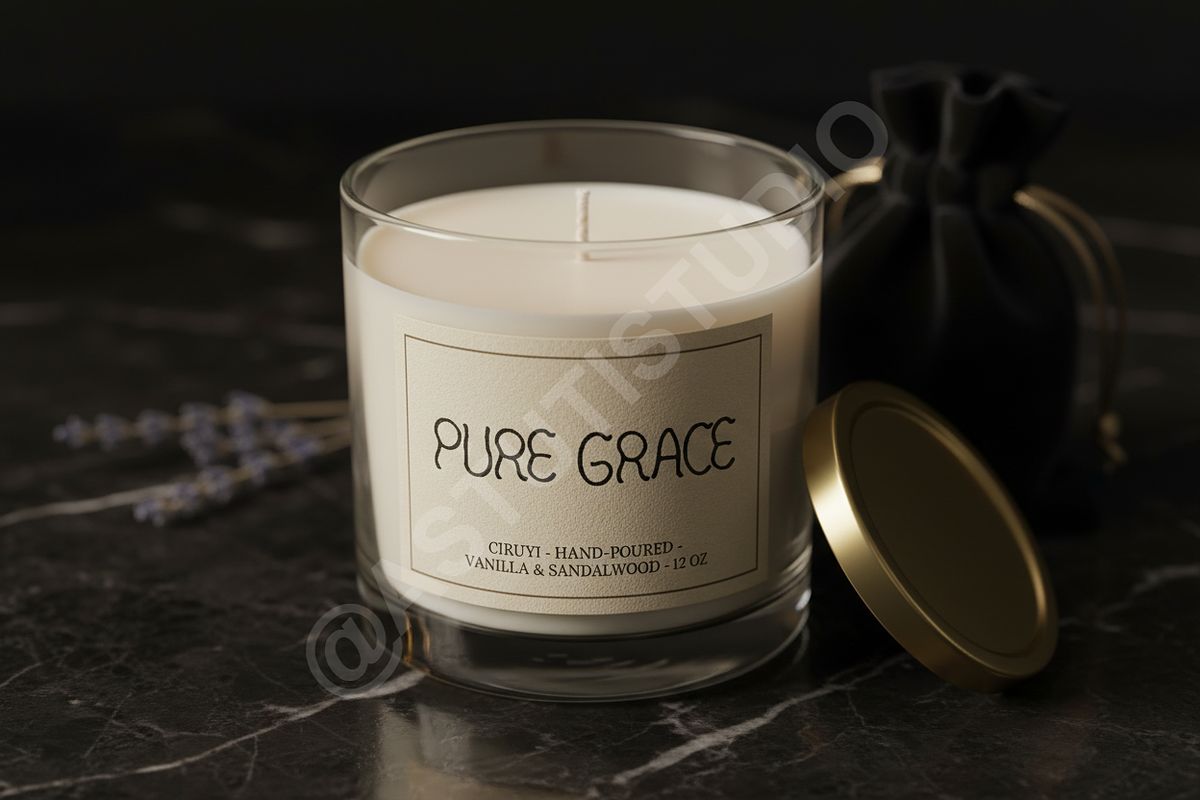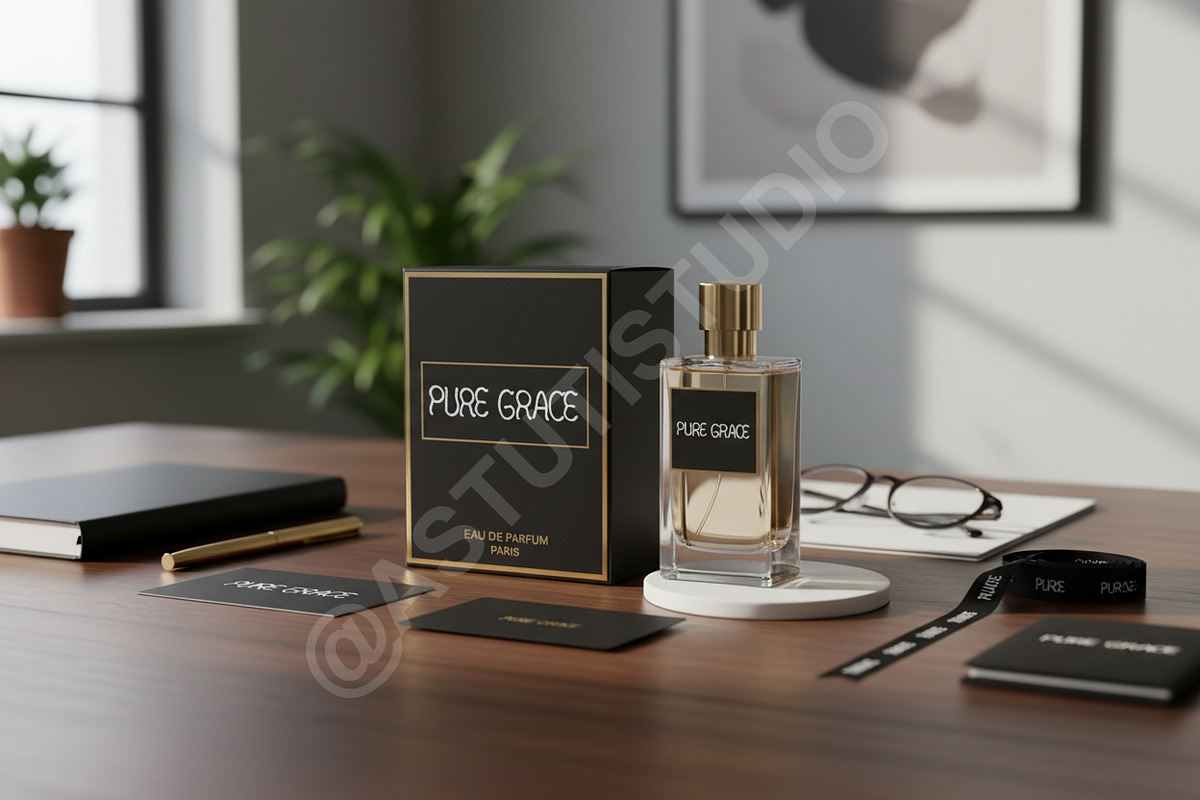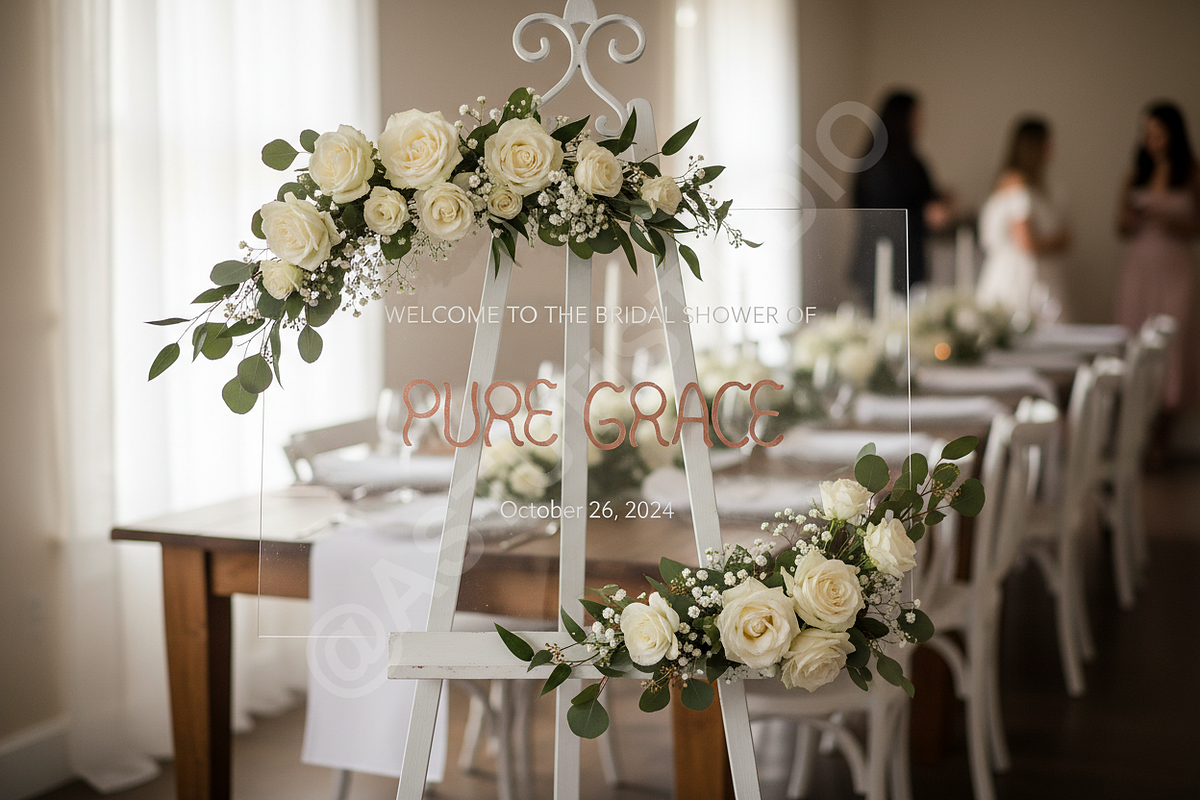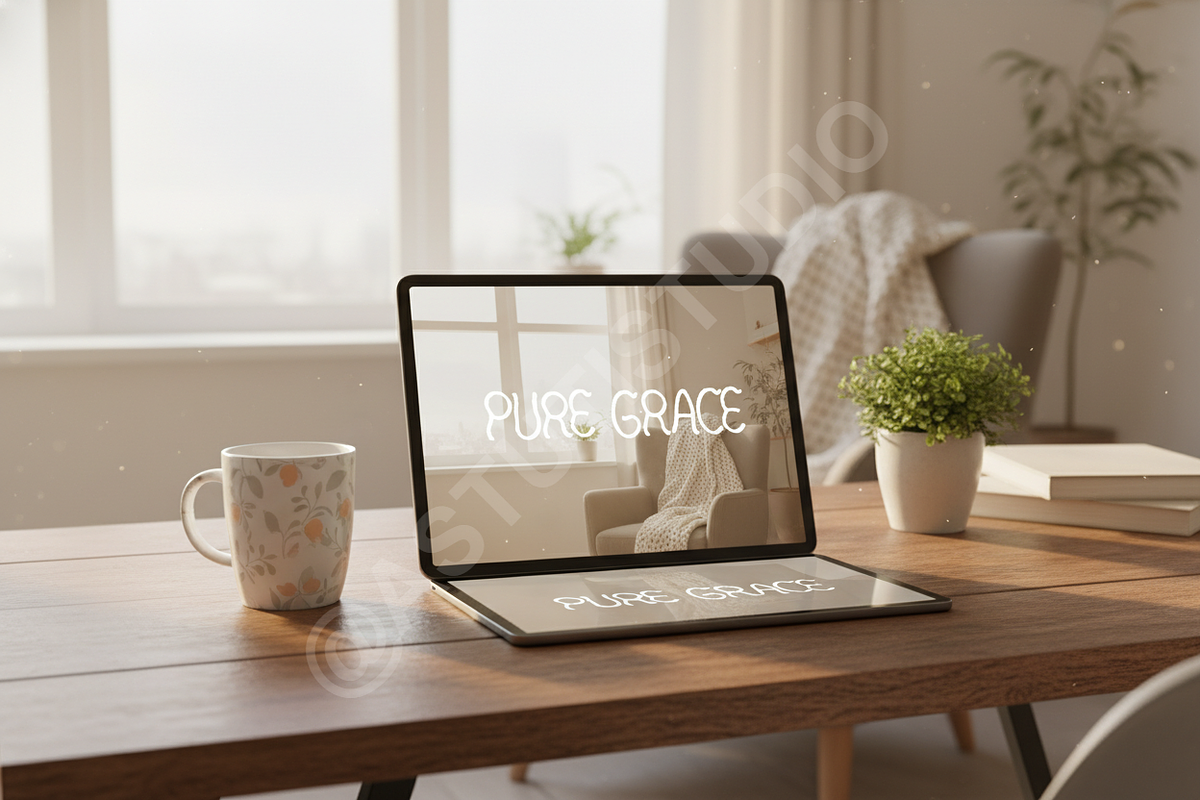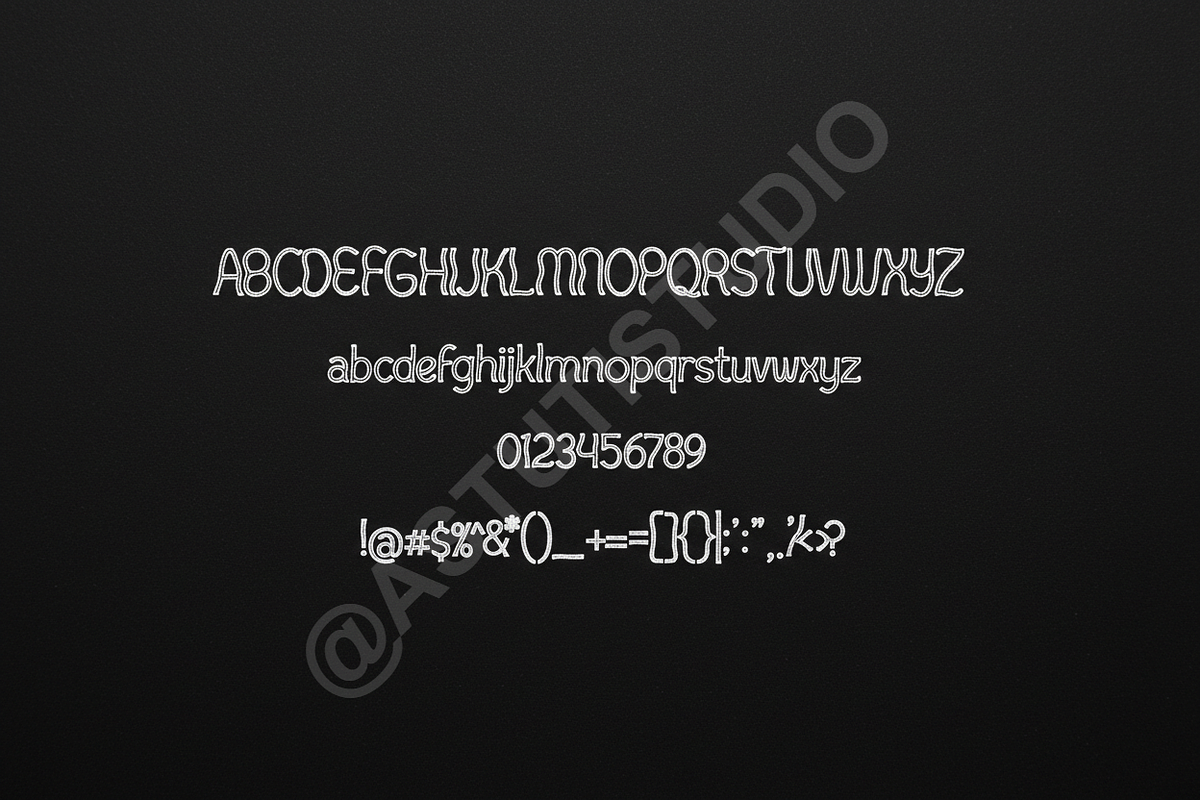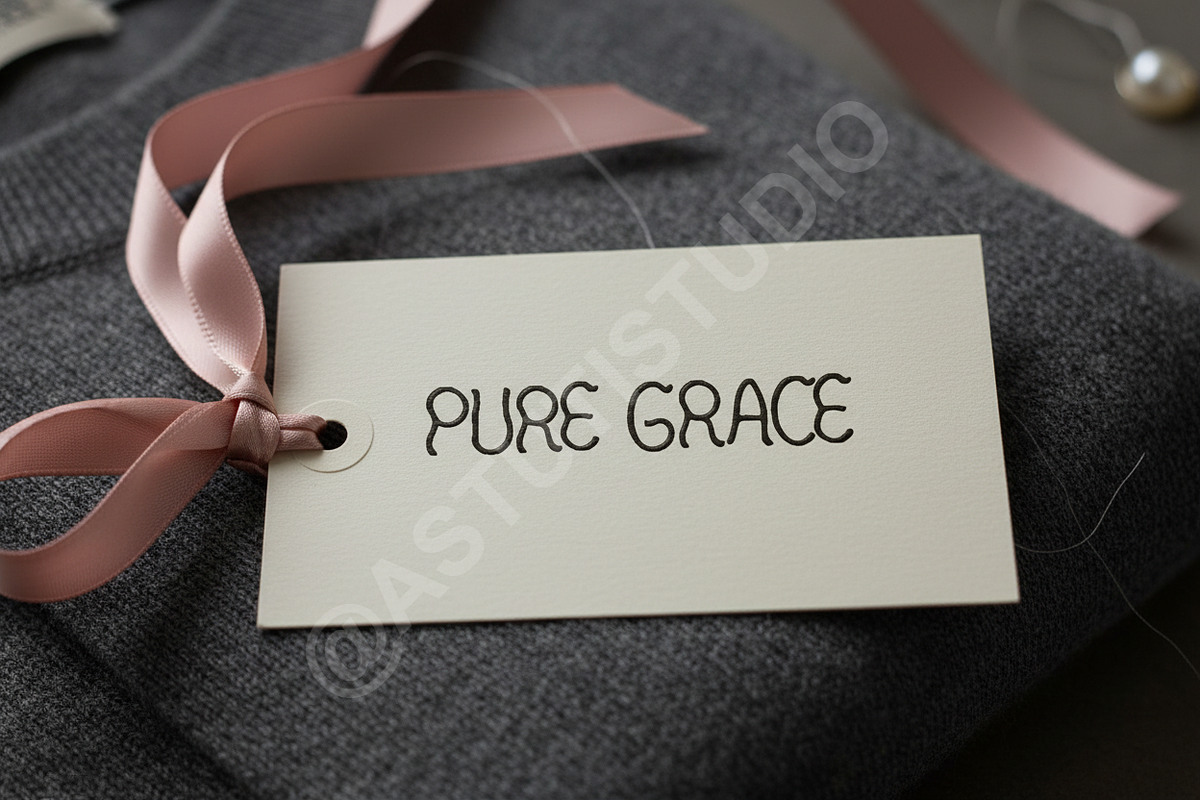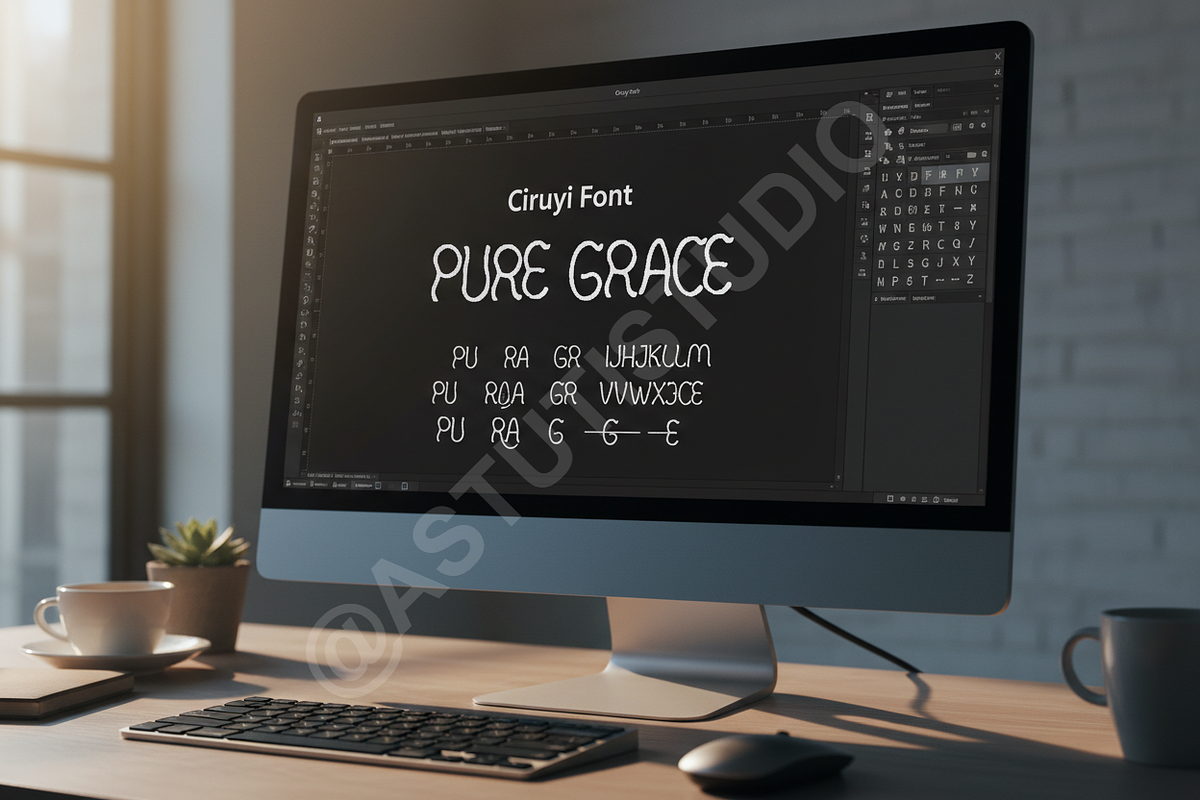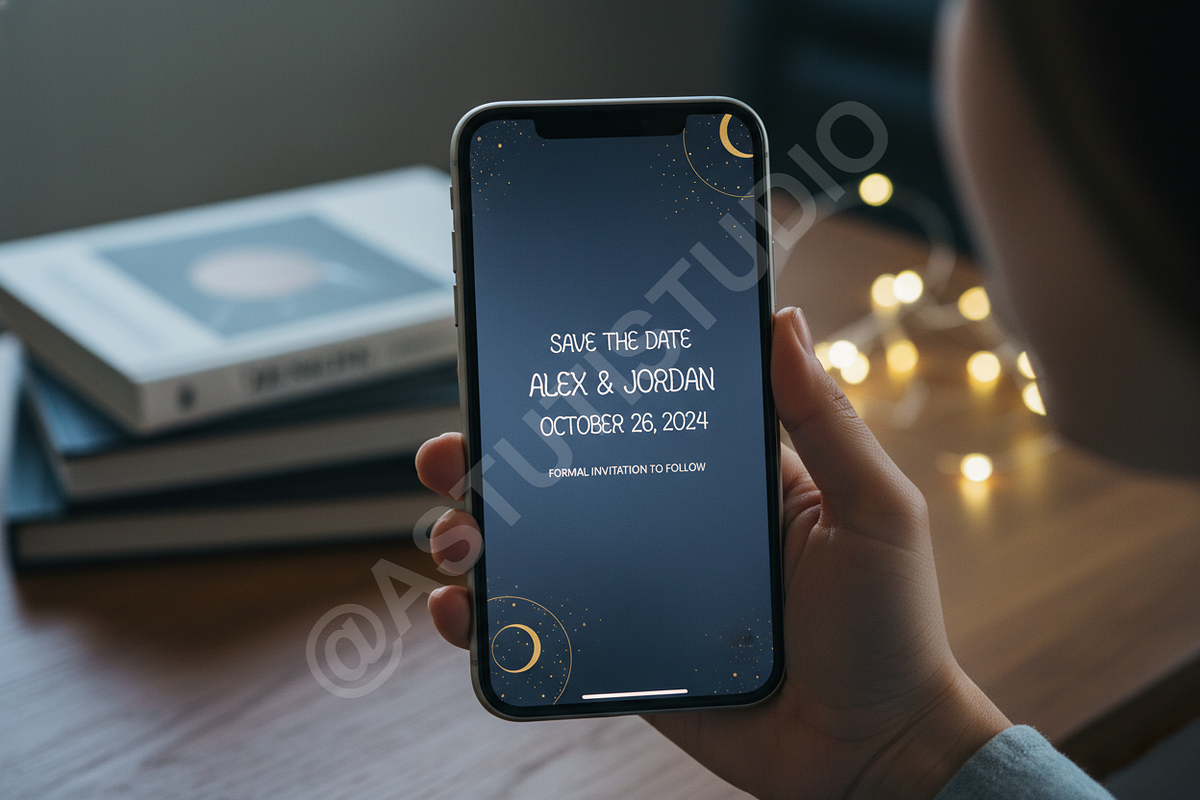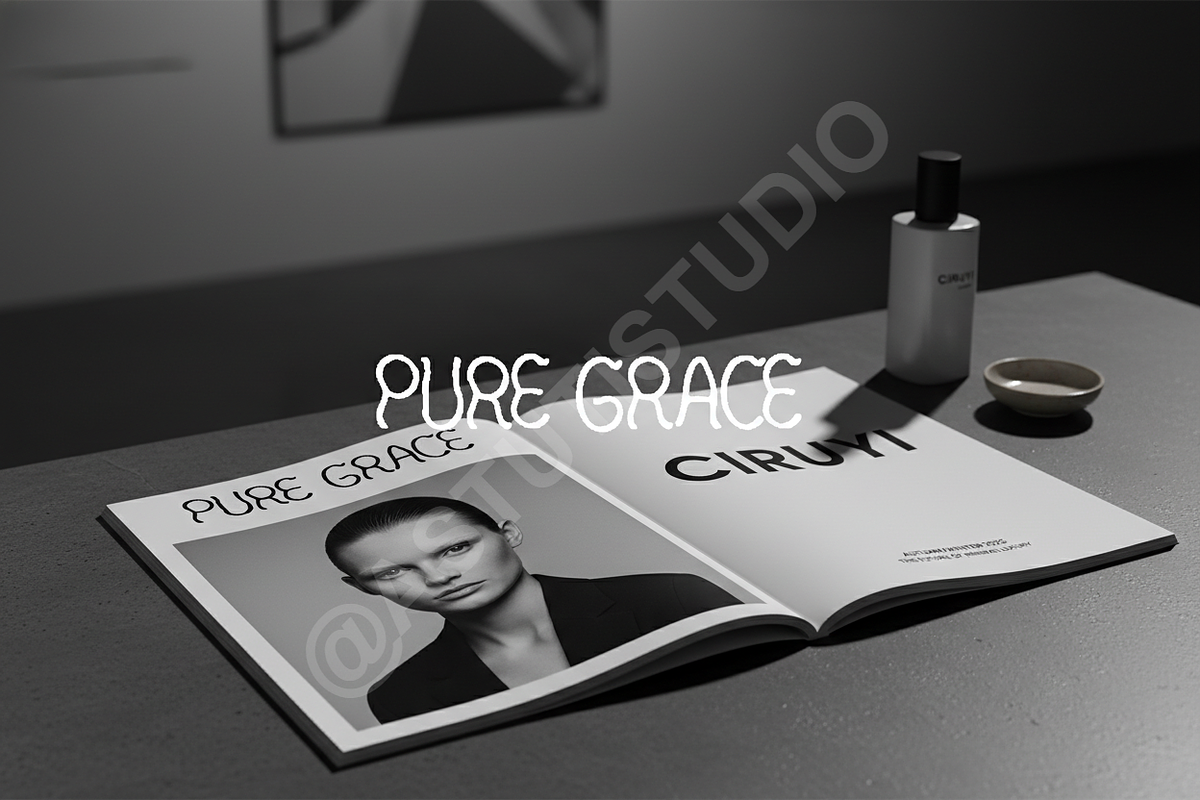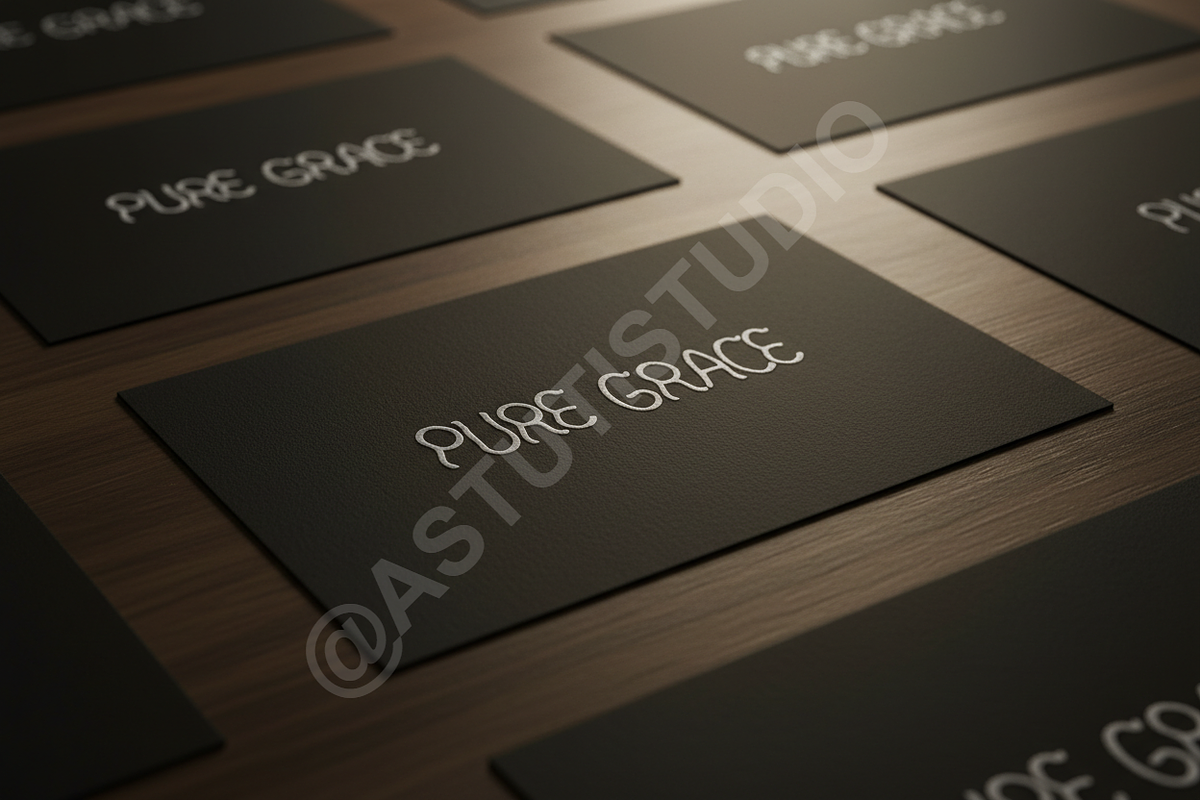
Ciruyi - Elegant High-Contrast Displ
CIRUYI: THE DEFINITION OF REFINEMENT
Ciruyi is a sophisticated and highly elegant display typeface designed for the discerning creative. Drawing inspiration from classic luxury aesthetics and modern typographic trends, Ciruyi features razor-sharp serifs, dramatic high contrast, and refined curves. It is the definitive choice for projects demanding an air of exclusivity and timeless quality. Perfectly suited for creating impactful luxury branding, stunning editorial layouts, and high-end social media campaigns.
DESIGN & FUNCTIONALITY
- Luxury Standard: Optimized for large format display, ensuring sharpness and readability even at monumental sizes.
- Opentype Features: Includes a comprehensive set of stylish ligatures and essential alternates that allow for deep typographic customization.
- Multilingual Support: Extensive character set includes accented glyphs essential for international luxury markets.
- Professional Production: Carefully kerned and optimized for seamless use across all professional design software (Adobe, Figma, etc.).
- Full set of Uppercase and Lowercase characters
- Numerals and extensive Punctuation
- Standard and Discretionary Ligatures